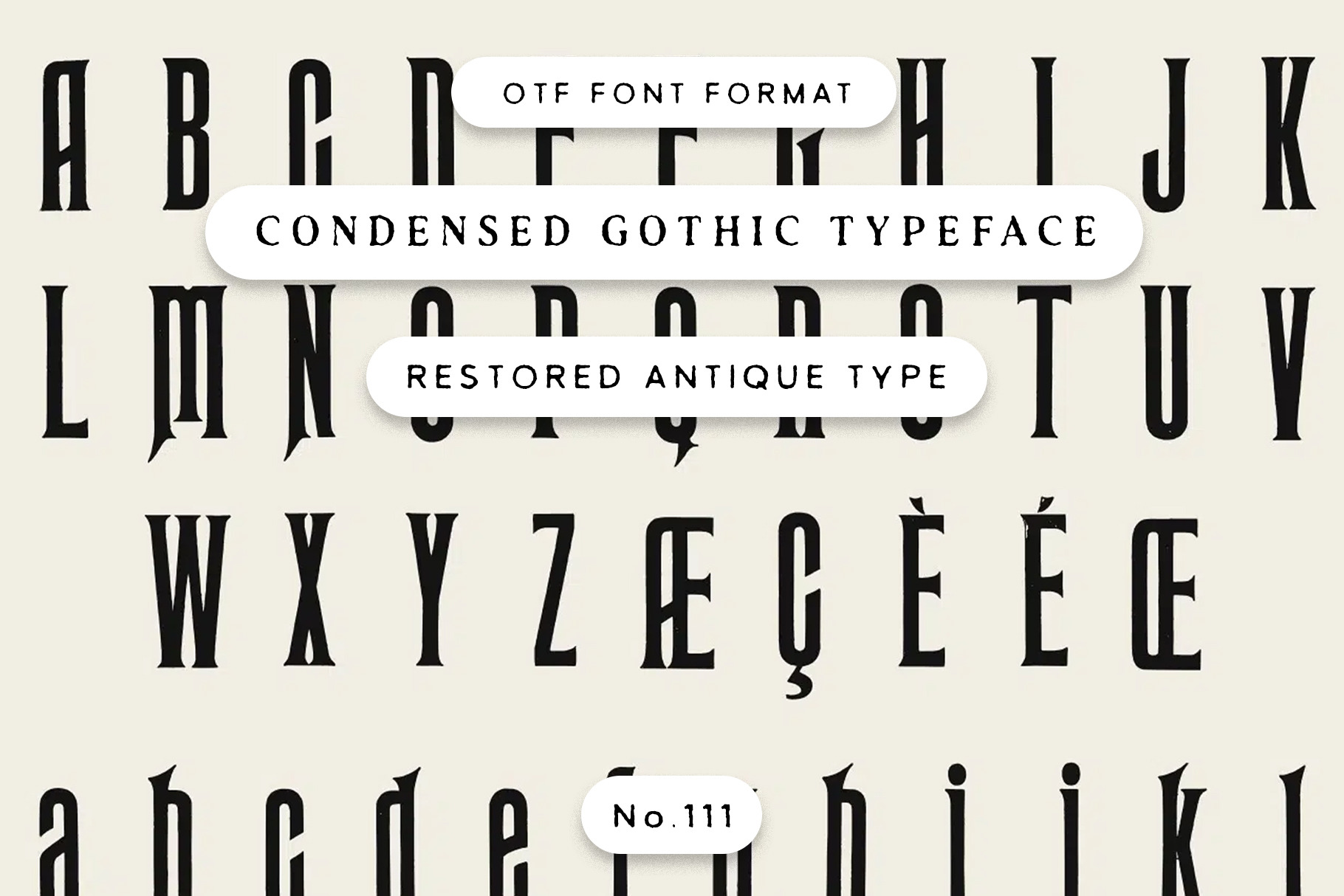
Condensed Gothic Typeface
CL Antique No.111: Condensed Gothic Typeface with Sharp Wedge Serifs and Tall Letters
This font is part of our growing collection of restored typefaces, carefully revived from original specimens in the Century Library archive. Each one is a direct translation of the past – scanned, cleaned up, and converted into a working font so you can actually use these historic letterforms, not just look at them.
CL Antique No.111 is a tall, condensed gothic typeface with sharp wedge serifs and narrow letterforms that give it a dramatic, carved-sign feel. The capitals read like chiselled stone lettering – perfect for strong headlines, book covers, labels, and band merch whenever you want a dark medieval edge without the heavy texture of full blackletter.
These aren't modern interpretations or redesigns. What you see is what was once printed – charming imperfections and all. The character set is limited to what was available in the original source material, which varies from font to font.
Perfect for adding an authentic vintage feel to your designs – whether you're working on a book cover, a poster, branding, or just something personal – these fonts carry all the texture, age, and personality you'd expect from type with deep historic roots.